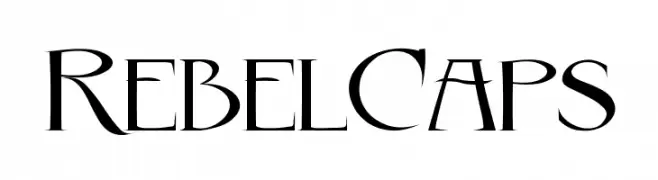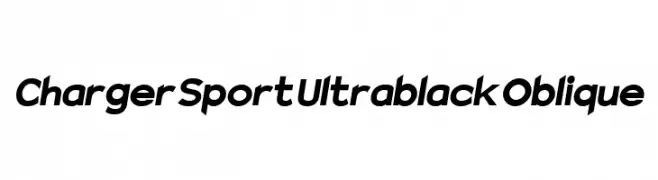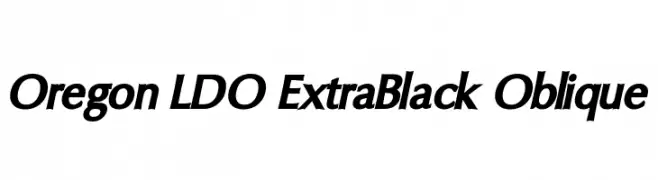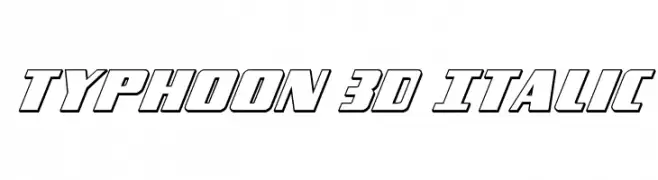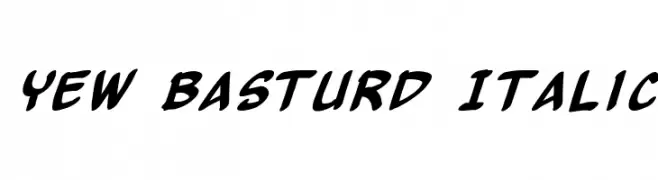
An artistic serif font with sharp, angular serifs and a modern calligraphic influence.
A modern, geometric font with bold, angular shapes and a futuristic style.
A bold, oblique font with a dynamic and energetic style.
A bold, 3D italic font with outlined characters and a futuristic look.
Portrait-based decorative dingbat font with high-contrast illustrations.
A bold serif font with high contrast and pronounced serifs, ideal for impactful designs.
A bold, italic font with dynamic and energetic strokes.